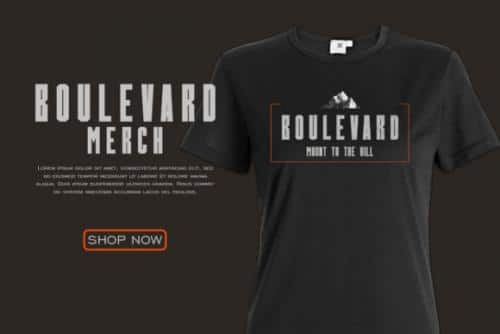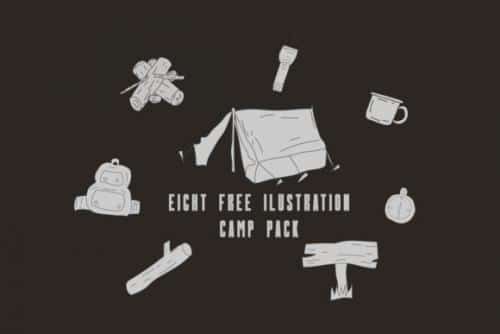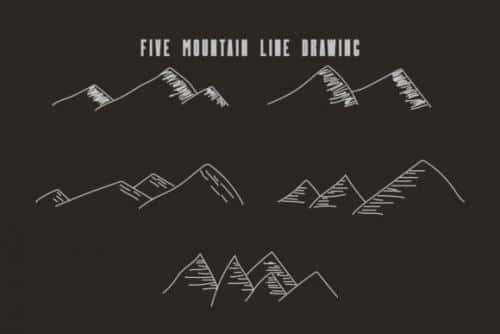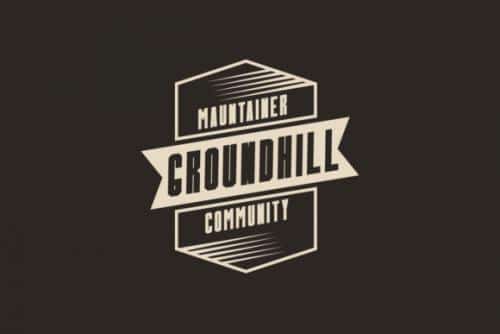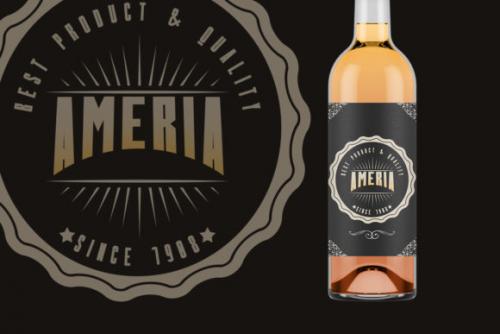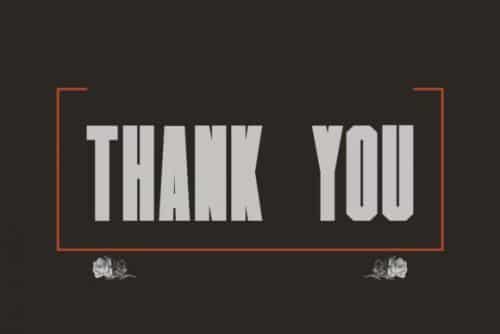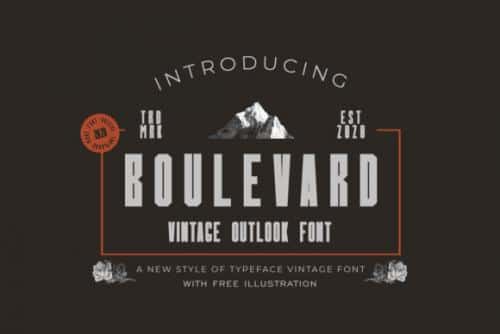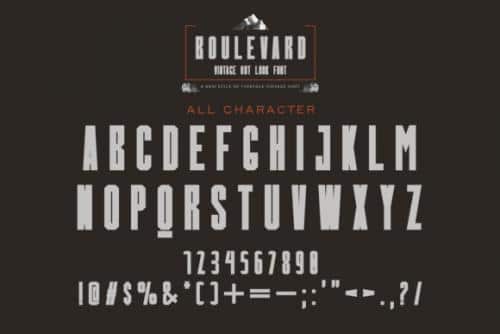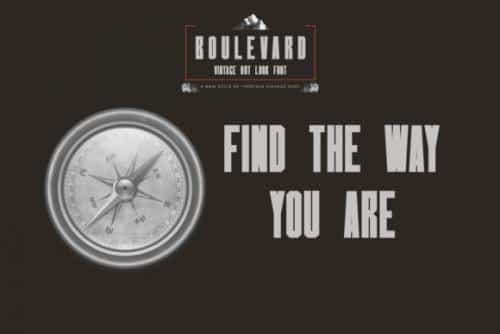
Boulevard Font
Introducing Boulevard Font. With a slightly more rectangular approach and some clever detailing, Boulevard has a distinct look of its own, yet provokes a calming familiarity of neutrality and objectiveness. As goes without saying, it’s also equipped with a sensible amount of features that make it a true, versatile workhorse. Get on board!
• Designer: JujunGag